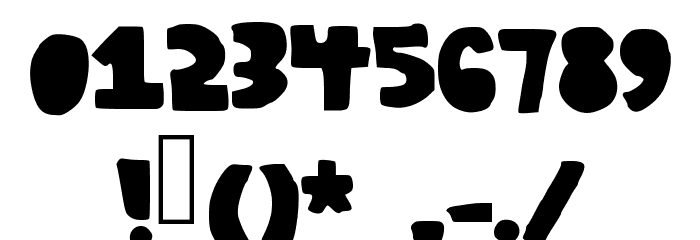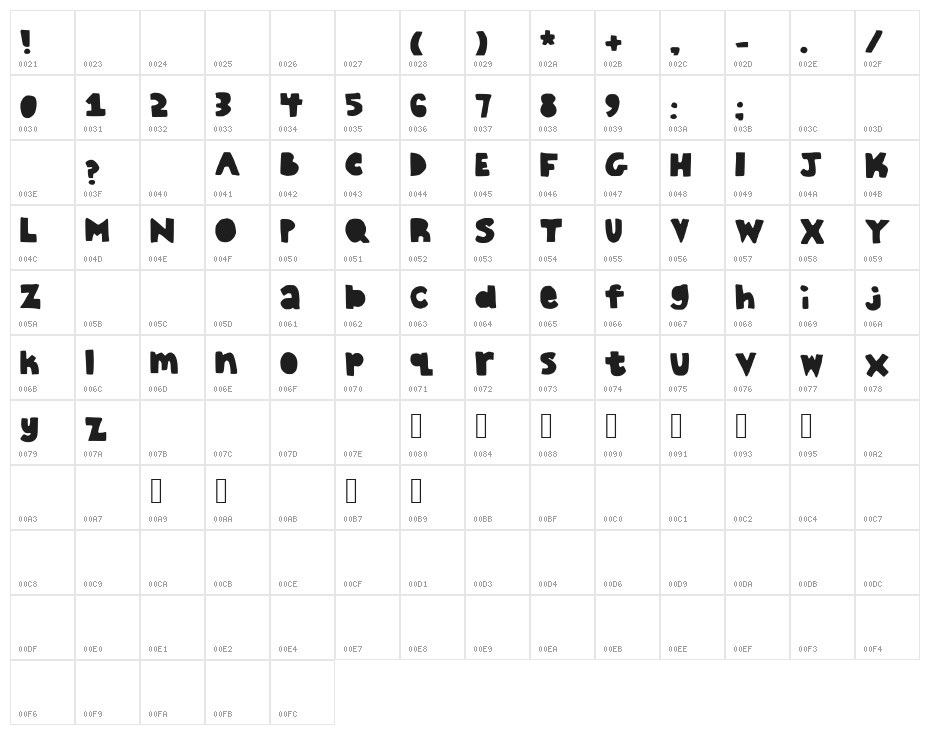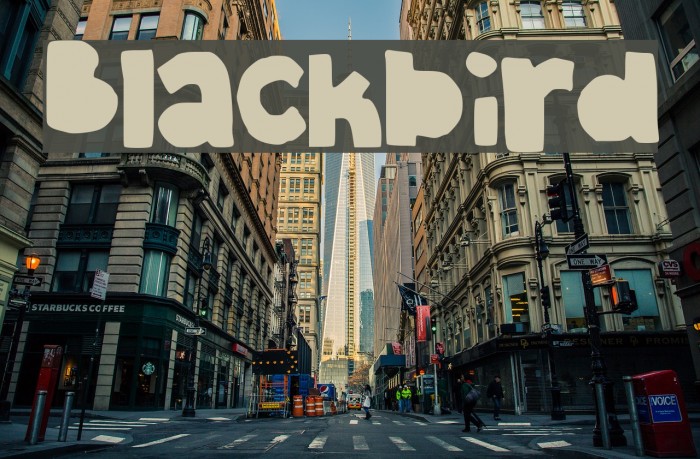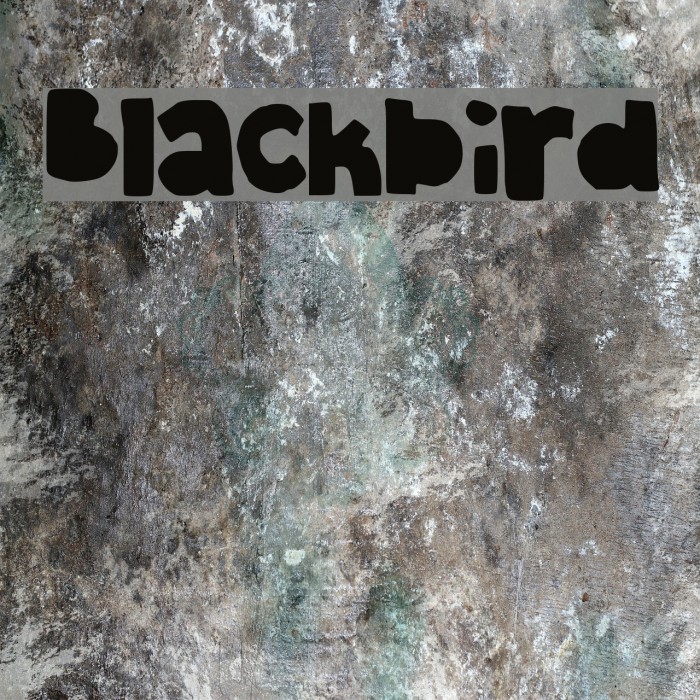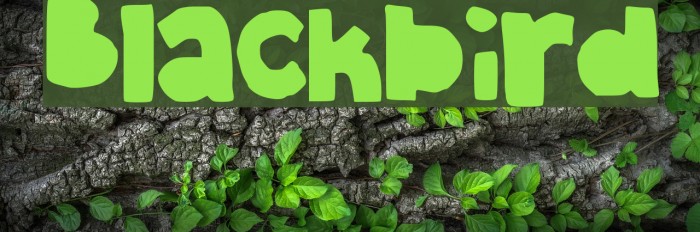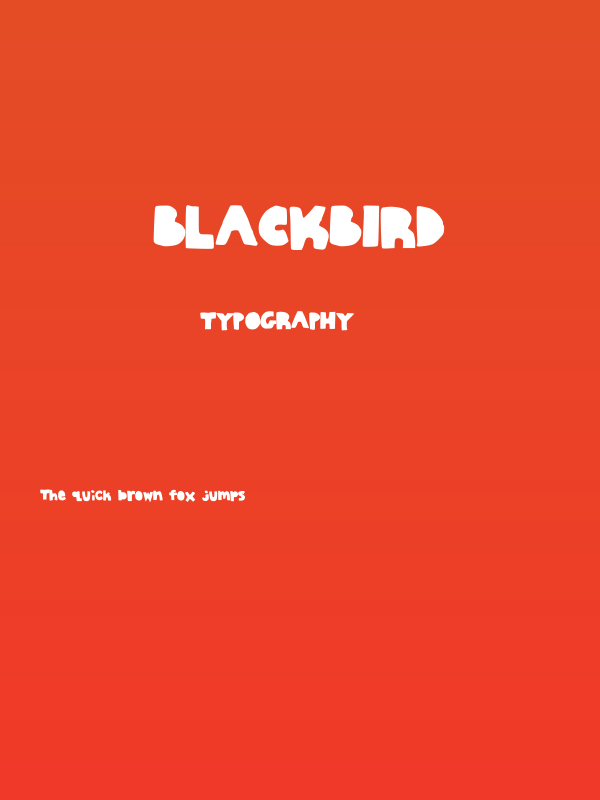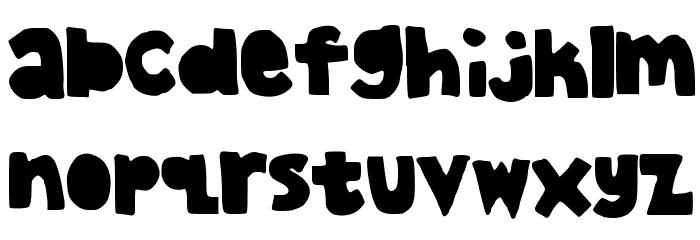
Blackbird Font
Blackbird Description
This font features a bold and playful style with a distinctly hand-drawn appearance. The characters are thick and rounded, giving them a friendly and approachable look. The uppercase and lowercase letters maintain a consistent weight, while the numbers and special characters follow the same design principles. The overall aesthetic is casual and fun, making it suitable for creative and informal projects. The font's unique style is characterized by its irregular shapes and whimsical flair, adding a touch of personality to any design.
BLACKBIRD UPPERCASE
BLACKBIRD LOWERCASE
BLACKBIRD OTHER CHARS
| Overall Style | Playful, Whimsical, Casual |